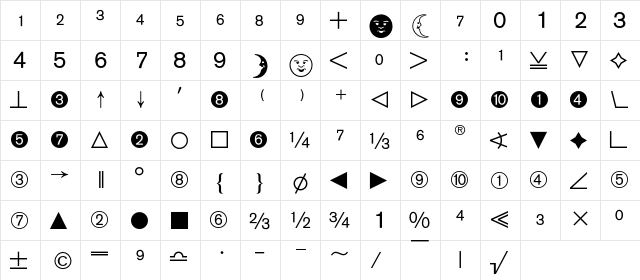
AG Figures + Pi BQ Regular
Design Context for AG Figures + Pi BQ Typeface
AG Figures + Pi BQ offers clean, dependable letterforms without strong stylistic allegiance, making it a practical choice for designers who need flexibility.